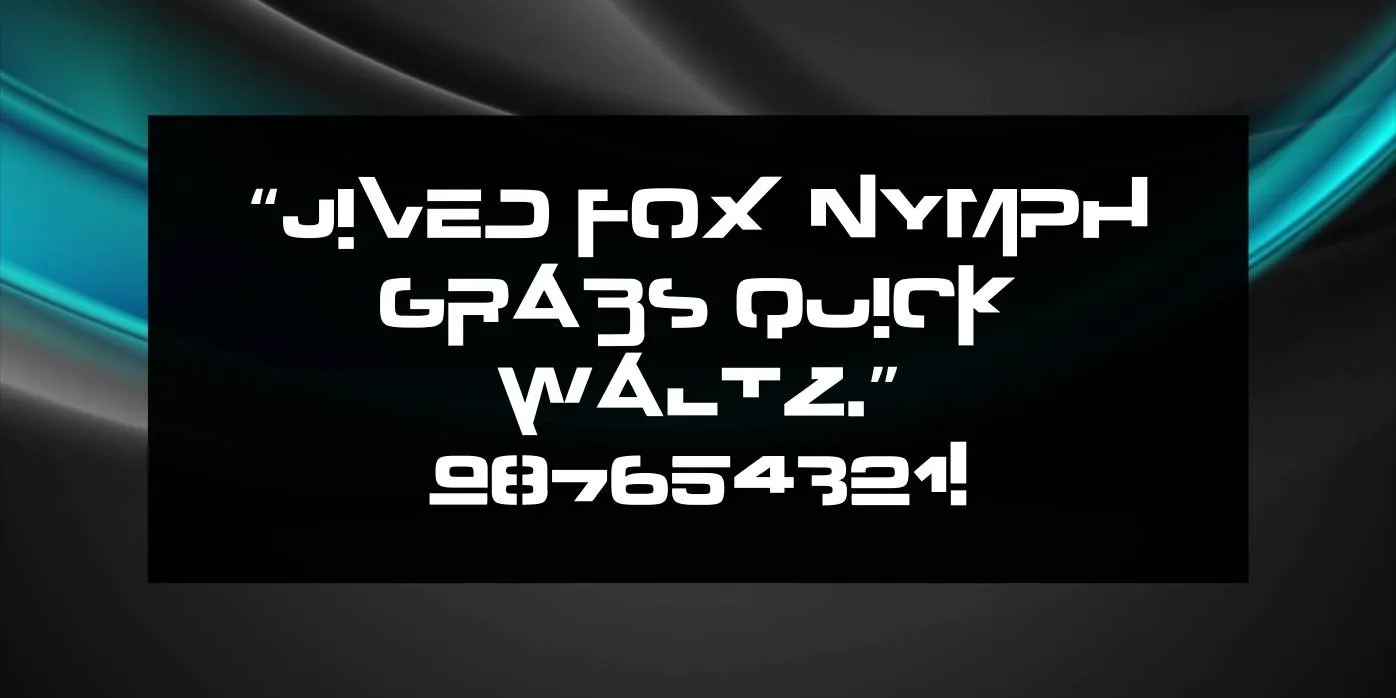
Outer Zone Font
Outer Zone Font is a very stylish and decorative font. It was designed by a famous font maker company Imagex. It is a techno-style font. This font consists of 131 characters and the number of glyphs is 110.
The weight of this font is average and the width of the font is medium (normal). Its basic languages which are supported by this font are Latin and Symbols. Its Unicode Blocks are Basic Latin, Latin-1 Supplement, and spacing modifier. This font provides the facility of an online generator tool that can make copy-paste work easier.